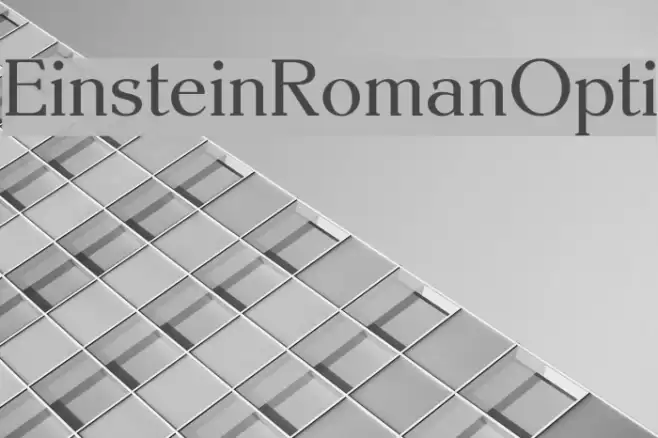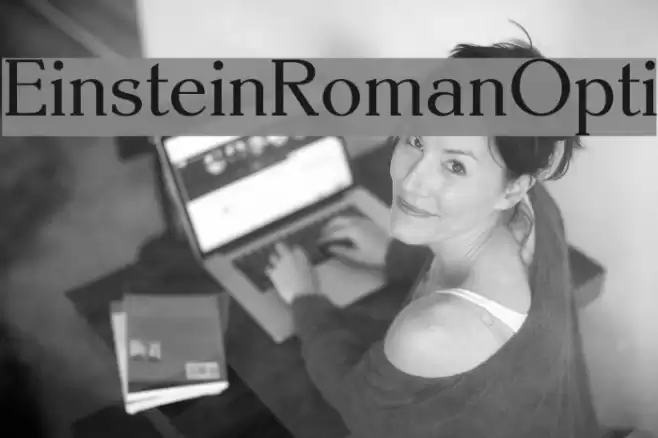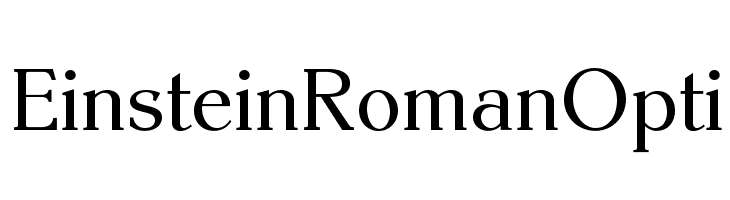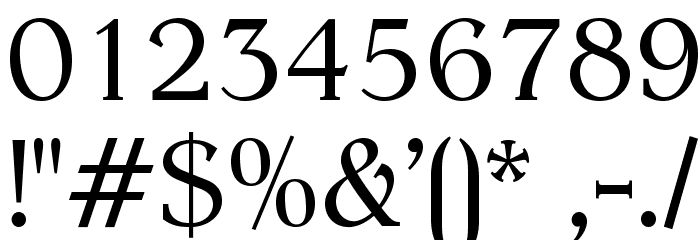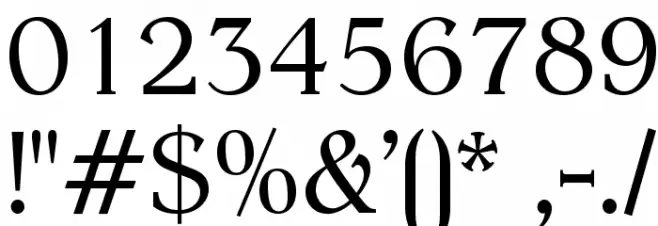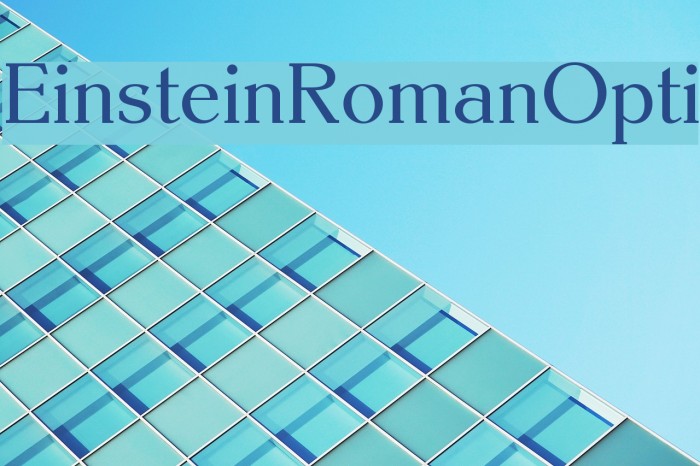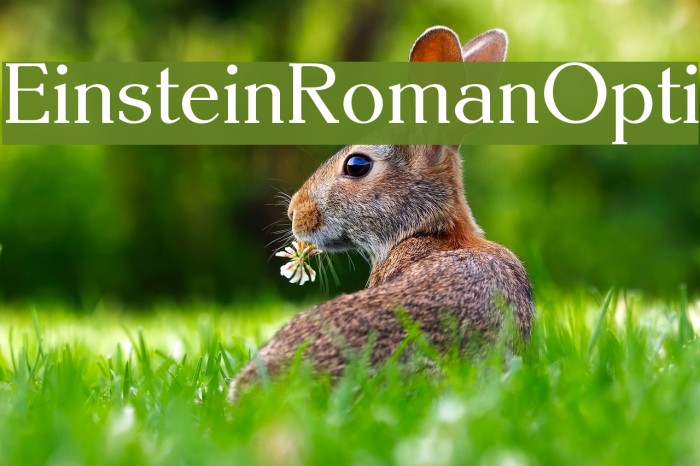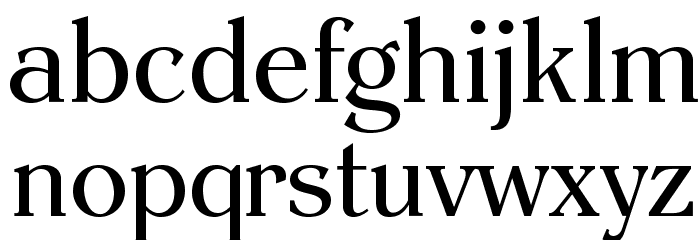
EinsteinRomanOpti Font
EinsteinRomanOpti Description
This typeface exudes a classic elegance with its refined serif design. The characters are well-proportioned, featuring a balanced contrast between thick and thin strokes that enhance readability while maintaining a sophisticated appearance. The uppercase letters stand tall with a commanding presence, while the lowercase letters are crafted with smooth curves and subtle serifs that add a touch of grace. The numerals are clear and distinct, making them suitable for both text and display purposes. Special characters are thoughtfully designed to complement the overall aesthetic, ensuring versatility across various applications.
A classic serif typeface with elegant proportions and refined contrast from Uncategorized fonts.
- Proposed Projects: Ideal for editorial design, book covers, formal invitations, and branding projects that require a touch of sophistication.
- Overall Style: Classic